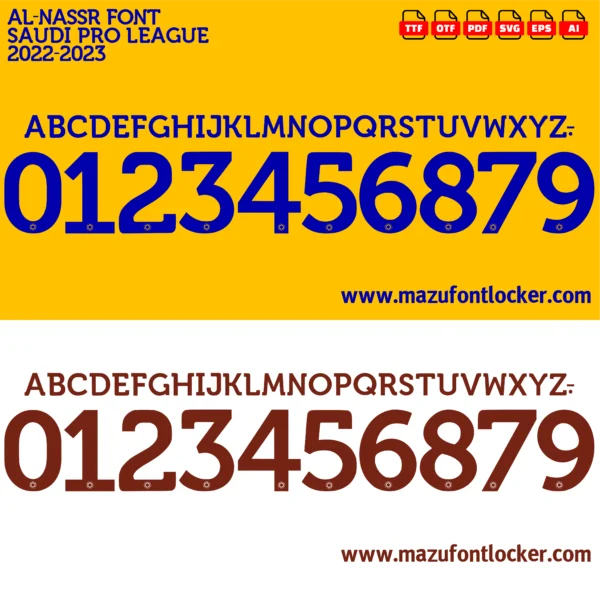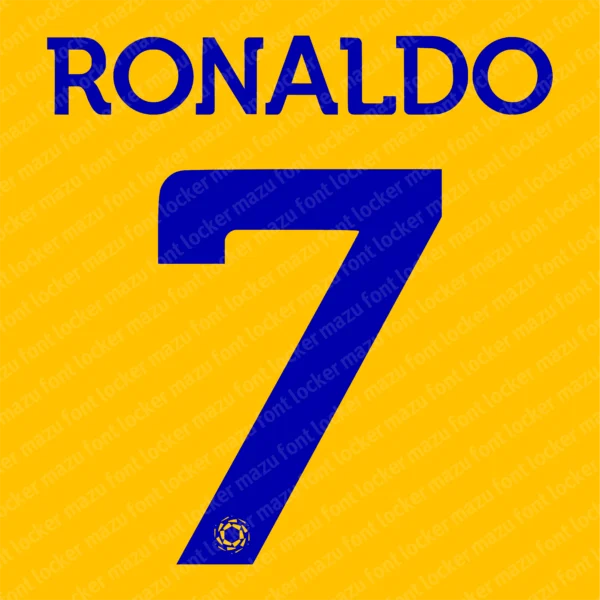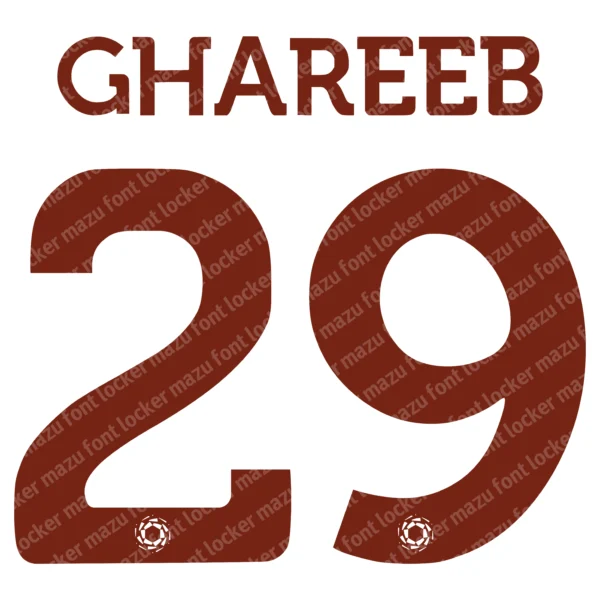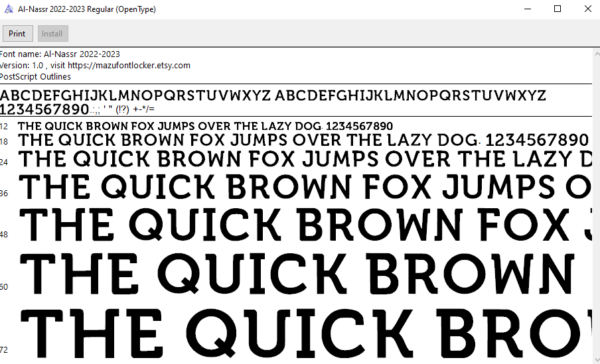
Al-Nassr 2022-2023 Font Vector – Epic Yellow Knights Masterpiece
This font captures the bold, fearless, elegant, and ultra-premium lettering that perfectly reflects the club’s legendary Saudi heritage combined with the fierce, unstoppable spirit of the Yellows — delivering unmatched tradition, intense passion, elite craftsmanship, and pure Al-Nassr fire for premium jersey mockups, epic football designs, spectacular sports visuals, standout fan creations, and professional branding projects.
Al-Nassr 2022-2023 Font Vector – Authentic Yellows Typeface
The Al-Nassr 2022-2023 Font Vector is a premium typeface that accurately recreates the official match lettering worn by Al-Nassr FC during the 2022-2023 season. This high-quality vector font kit captures the bold, powerful, and dynamic typography that represents the pride, ambition, and winning spirit of the Yellows.
Designed for professional designers and passionate Al-Nassr supporters, the Al-Nassr 2022-2023 Font Vector delivers perfect authenticity for creating realistic jersey mockups, fan merchandise, matchday posters, social media graphics, and Saudi football content. It pairs beautifully with Al-Nassr’s iconic yellow and blue kit, one of the most recognizable football identities in Asia.
Why Choose Al-Nassr 2022-2023 Font Vector
This font stands out because of its sharp vector precision and strong club identity. Every letter and number is crafted to match the exact style used on the players’ shirts during Al-Nassr’s memorable 2022-2023 campaign. Whether you are creating realistic kit templates or exciting Al-Nassr-themed content, the Al-Nassr 2022-2023 Font Vector gives your designs that authentic Mrsool Park atmosphere.
The letterforms in the Al-Nassr 2022-2023 Font Vector are bold, modern, and highly readable. The strokes feature strong geometric construction combined with athletic styling, creating a professional appearance that stands out on jerseys while preserving Al-Nassr’s rich football heritage.
The numerals feature strong curves and clean edges, delivering a confident and premium appearance. This vector design ensures flawless scalability and excellent legibility across both print and digital applications.
- Full uppercase A–Z and numbers 0–9 in authentic Al-Nassr 2022-2023 style
- Multilingual Latin character support including Arabic-influenced accents and special characters
- Includes the exact crest glyph placement used beneath player numbers
Al-Nassr 2022-2023 Campaign
The 2022-2023 season marked a historic chapter for Al-Nassr FC. The Yellows competed fiercely in the Saudi Pro League and delivered strong performances in Asian competitions. The arrival of global superstar Cristiano Ronaldo in late 2022 electrified the squad and fans alike, bringing world-class talent to Mrsool Park in Riyadh.
The Al-Nassr 2022-2023 Font Vector is an independently designed typeface package. It is carefully crafted to replicate the official shirt lettering style used during Al-Nassr’s 2022-2023 season. This font kit is perfect for creative projects, fan edits, football-inspired artwork, and custom sports graphics.